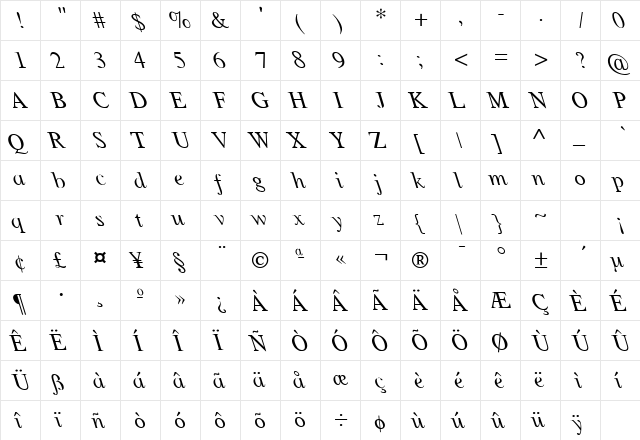
Times Lefty Normal
Design Context for Times Lefty Typeface
Times Lefty takes a measured approach to typography — its balanced proportions and neutral character make it a reliable workhorse for both digital and print work.